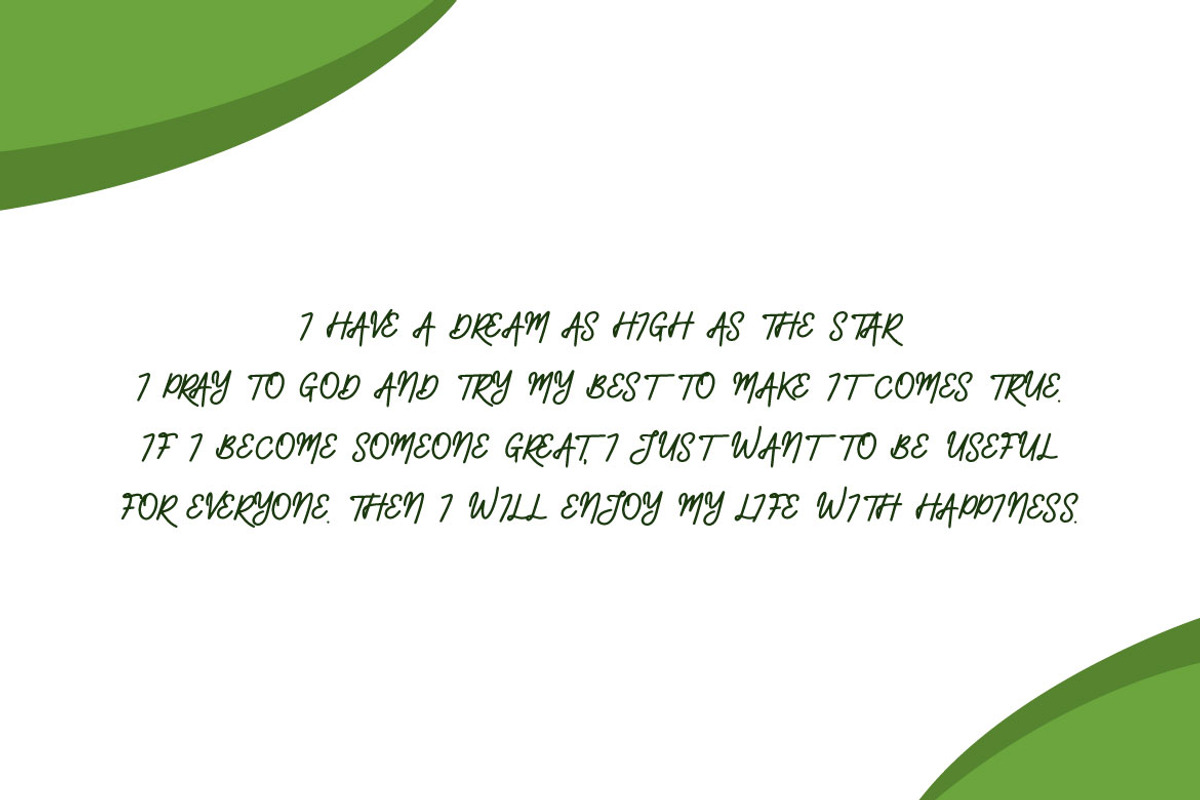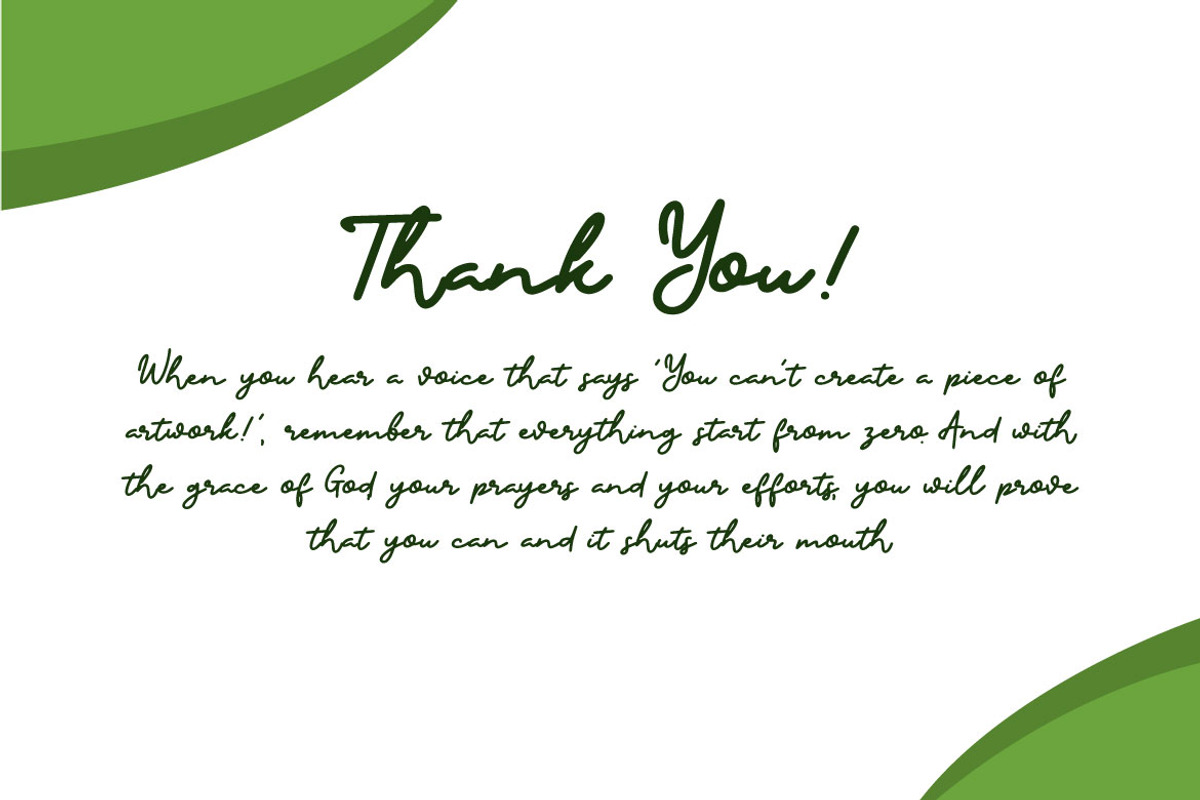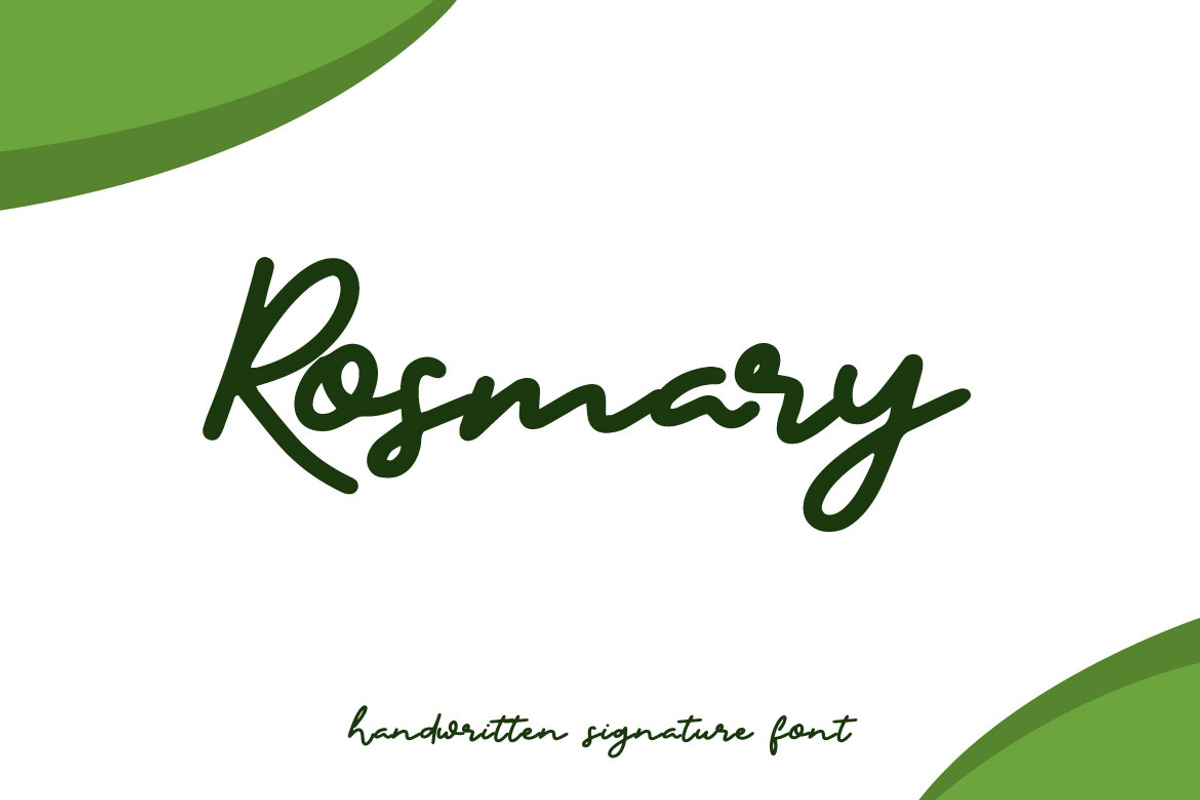
Rosmary - Bold Signature Font
Hello! Rosmary - Bold Signature Font is a display font with natural handwritten style. Rosmary can be used in any works such as wedding invitation, book title, poster, advertisement, social media content, logo and many more.